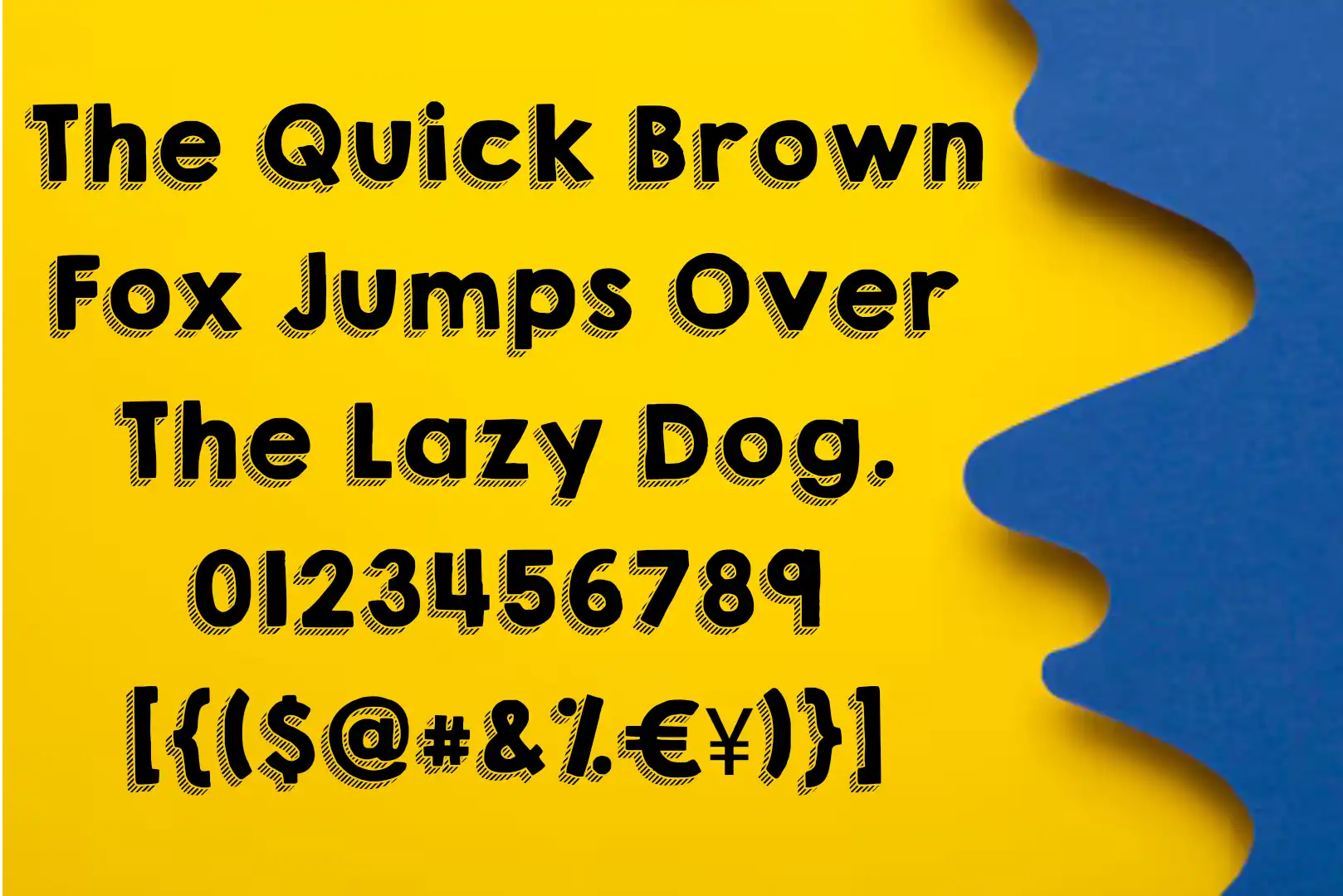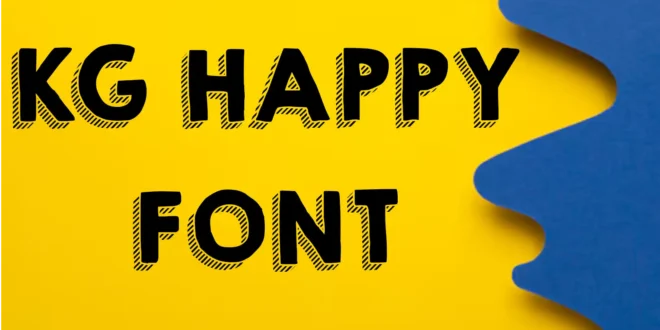
KG Happy Font is a playful, handwritten typeface designed by Kimberly Geswein. Known for her vibrant and quirky font designs, Geswein created them to add fun and joy to various design projects.
This font is widely appreciated for its versatility and ease of use, particularly in educational settings, greeting cards, and craft projects. A similar texture to this font is Edwardian Script Font, It provides a warm and friendly vibe, helping designs stand out with a personal touch.
Uses of KG Happy Font
It is widely used in a variety of creative projects due to its casual, hand-drawn appearance. It is ideal for educational materials such as worksheets, classroom decorations, and posters, where a friendly, inviting look is required.
The font’s playful tone also makes it a favorite for children’s books and educational tools, adding an element of fun and creativity to learning.
In addition to education, KG Happy is perfect for crafting projects, scrapbooking, and greeting cards. Its quirky style adds a personal touch to handmade projects, allowing users to express creativity uniquely.
| Name | KG Happy Font |
| Designer | Kimberly Geswein |
| Type | Handwritten |
What type of designs is KG Happy font best suited for?
While, it is great for educational materials, crafting projects, greeting cards, and informal branding.
How many variants of KG Happy are available?
Also, it comes in regular, shadow, and solid versions, providing flexibility in design.